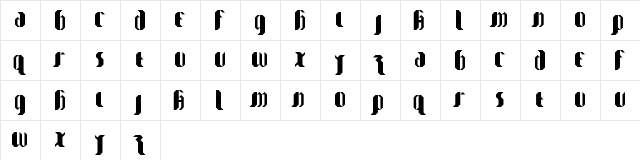
my_goth_is better Font Preview
Design Context for my_goth_is better Typeface
my_goth_is better is a composed and adaptable typeface that performs quietly and consistently across a wide range of design contexts.